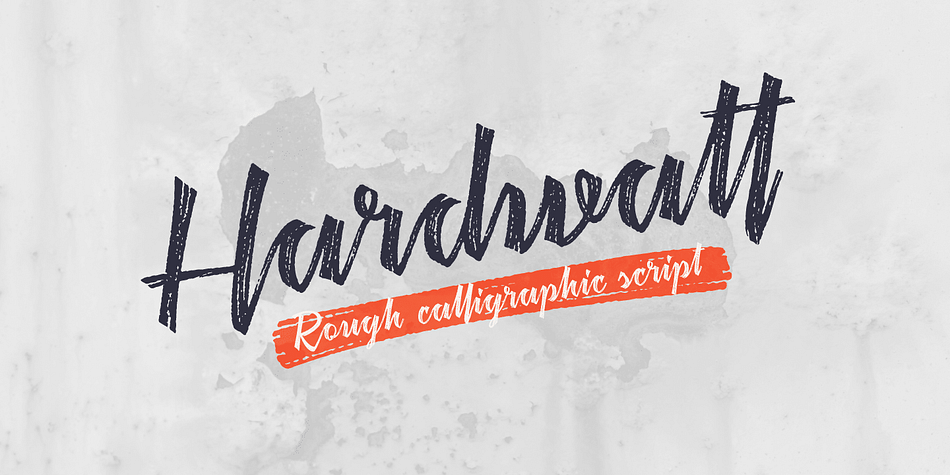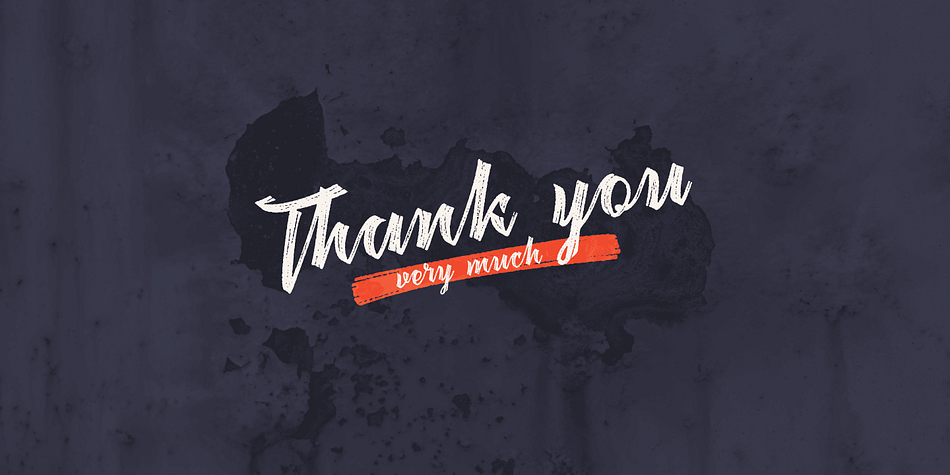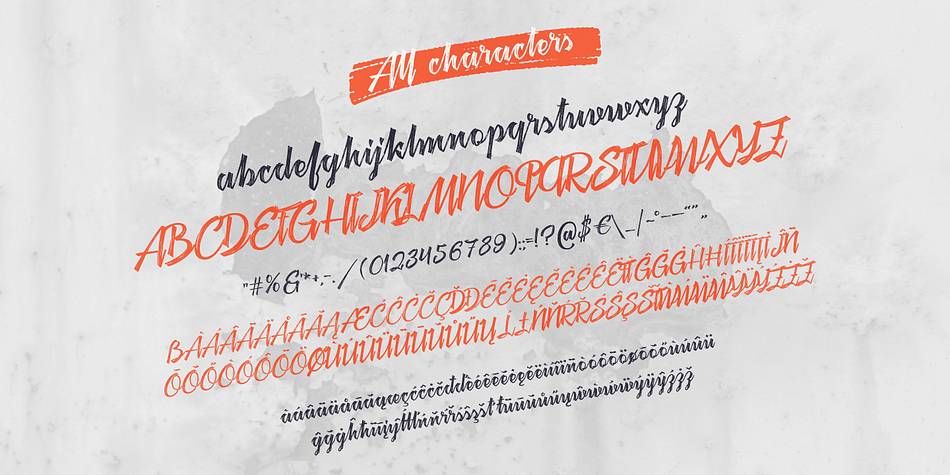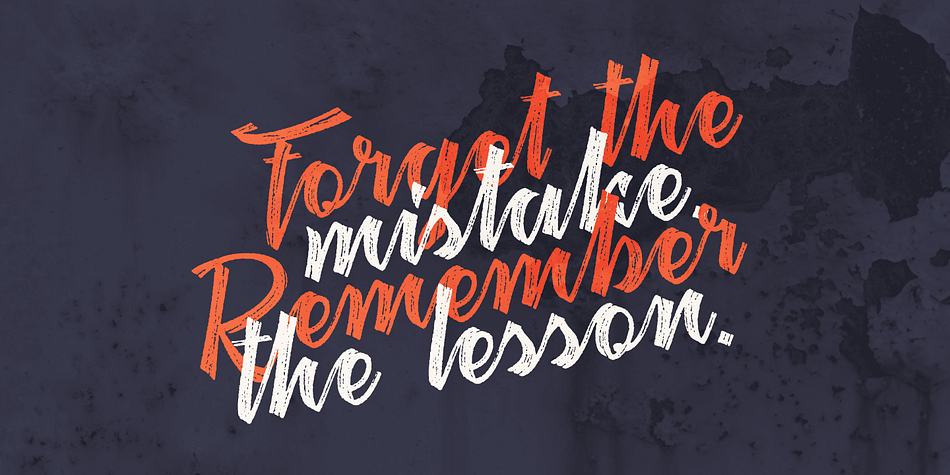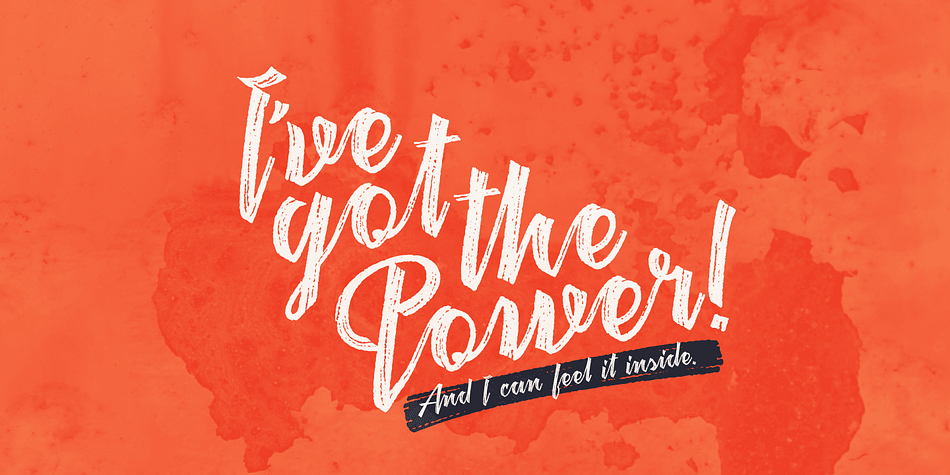
Hardwatt
Designed by Gleb Guralnyk, Hardwatt is a brush script font family published by Gleb Guralnyk.
Hello! Presenting a calligraphic font with natural scratched texture effect. It’s a script with connected letters, lots of characters including West European languages support and few ligatures.